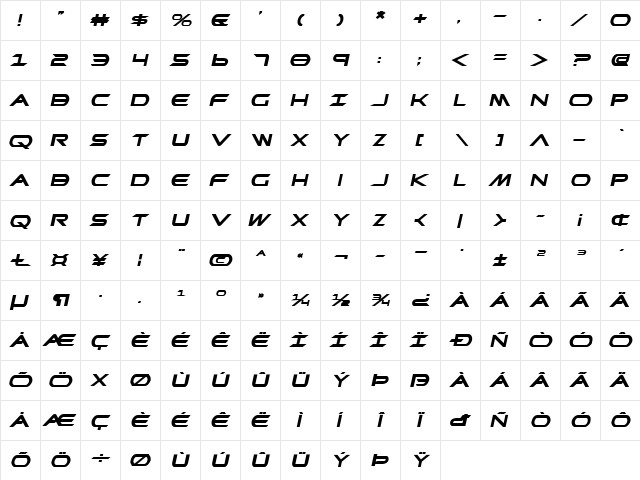
Design Context for Promethean Bold ExpItalic Typeface
Promethean Bold ExpItalic offers clean, dependable letterforms without strong stylistic allegiance, making it a practical choice for designers who need flexibility. Its italic angle brings a sense of urgency and motion to the letterforms. The heavy weight commands attention and anchors typographic hierarchies.
Pro Tip: Try Promethean Bold ExpItalic for annotation and caption copy alongside an upright companion — the contrast in angle creates a dynamic but ordered typographic system.